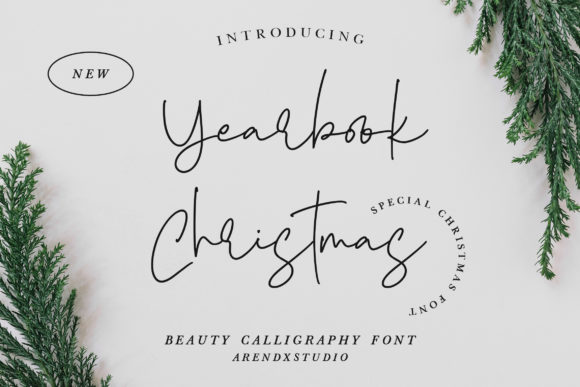
Step into a world of nostalgic charm and festive cheer with Yearbook Christmas Font, a captivating script font family that evokes the warmth and joy of the holiday season. This exquisite creation by Arendxstudio is a visual masterpiece, carefully crafted to add a touch of elegance and whimsy to your creative projects.
With its sweeping strokes and delicate flourishes, Yearbook Christmas Font captures the essence of handwritten calligraphy, infusing your designs with a personal and heartfelt touch. Each letter is a work of art, meticulously designed to exude charm and personality, making your words come alive on the page.
Indulge in the versatility of Yearbook Christmas Font, a font that seamlessly adapts to a multitude of design styles and applications. Whether you're crafting eye-catching logos, designing enchanting invitations, or creating heartwarming quotes, this font will elevate your projects to new heights.
Experience the magic of Yearbook Christmas Font in your wedding stationery, adding a touch of festive elegance to your special day. Let your vows, menus, and table numbers shimmer with the beauty of this font, creating a cohesive and unforgettable theme that reflects the joy and love of your celebration.
Unleash your creativity with Yearbook Christmas Font, a font that will transform your designs into works of art. Its timeless charm and endless versatility make it the perfect choice for those seeking to add a touch of festive flair to their projects. Embrace the spirit of the season and let your imagination soar with this enchanting font.